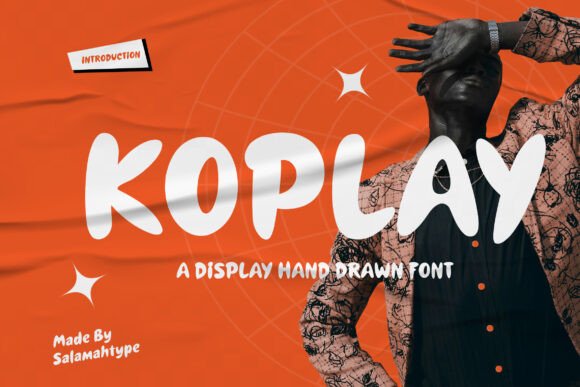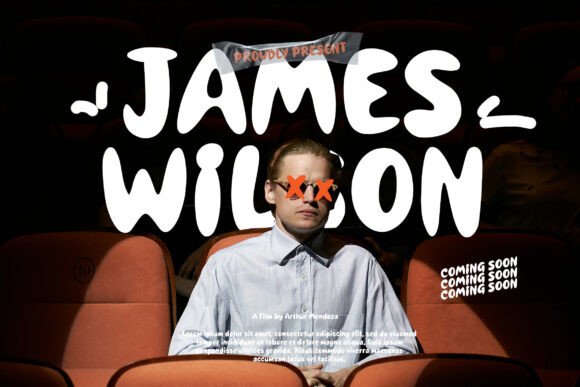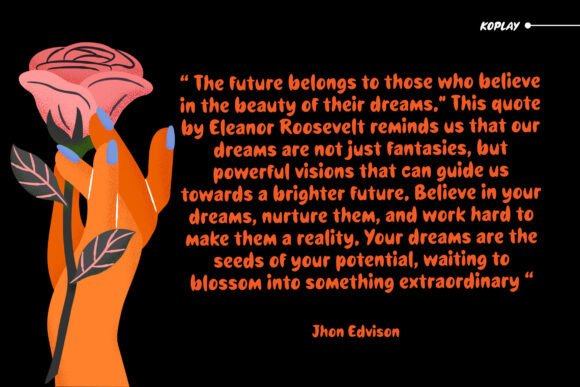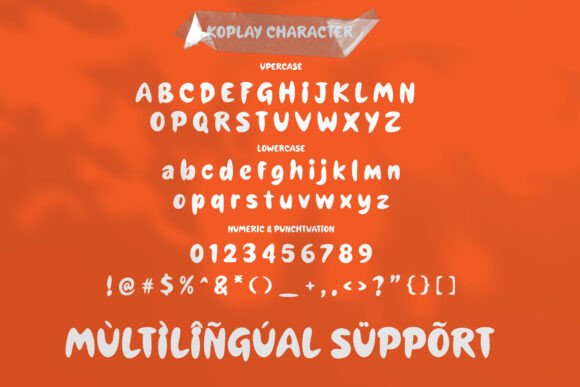
Koplay Font: A Bold Display Font for Cute & Playful Designs!
About the Koplay Font
Meet Koplay Font, a stunning font that brings a touch of elegance and professionalism to any design. KOPLAY is a bold and playful font that brings fun and energy to any design. Available in both regular and italic versions, it offers versatility for various creative projects. Its charming and lively style makes it perfect for cute designs, urban packaging, websites, posters, and branding taglines. Whether you’re looking to create a standout logo or an eye-catching visual, KOPLAY adds a cheerful and dynamic touch to your work.
Koplay’s playful boldness shines in headlines, short text blocks, and branding applications where a fun, approachable feel is desired. It’s ideal for children’s products, playful apparel brands, or youthful energy drink packaging. However, its condensed letterforms and strong character make it less suitable for body copy or UI elements requiring high readability at small sizes.
Pair Koplay with a clean sans-serif like Open Sans for a balanced contrast; the sans-serif’s neutrality will ground Koplay’s energy. Alternatively, a delicate script font could add a touch of elegance, while a geometric sans-serif would create a more modern, graphic feel. Avoid pairing it with other bold or heavily stylized fonts, as this could create visual clutter.
Koplay’s overall personality is best described as energetic and friendly, making it a great choice for projects that need a boost of positive, youthful character.
Koplay Font Usage Examples
Koplay Font Example